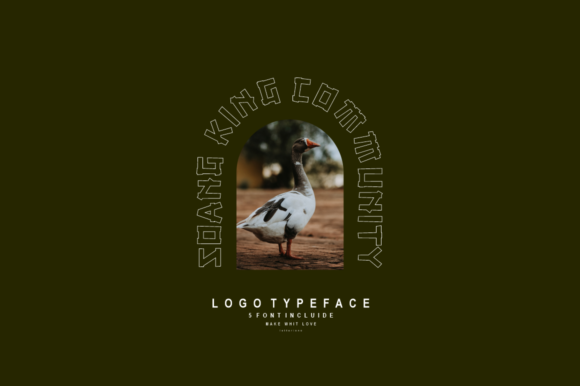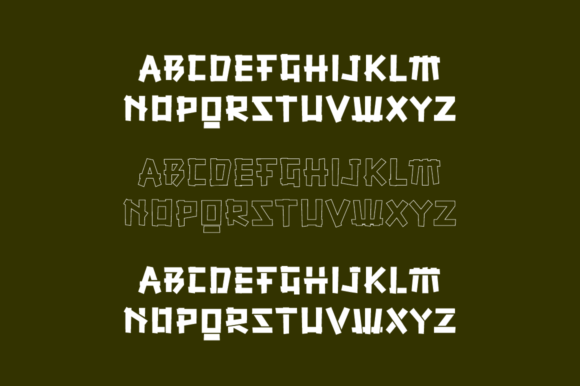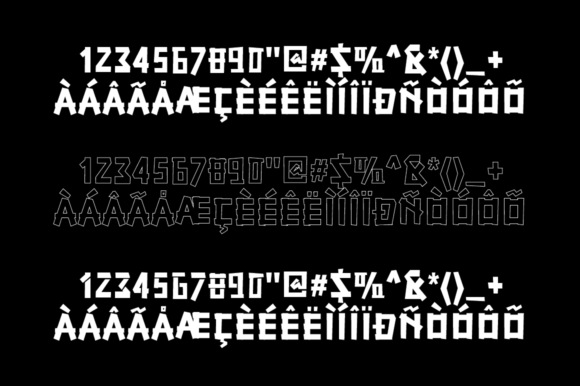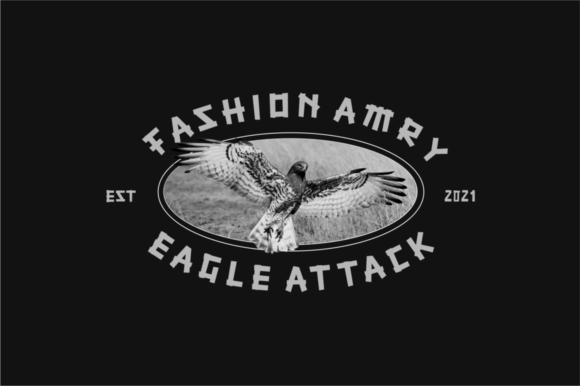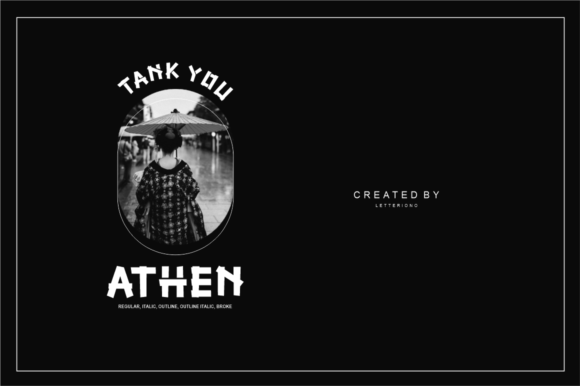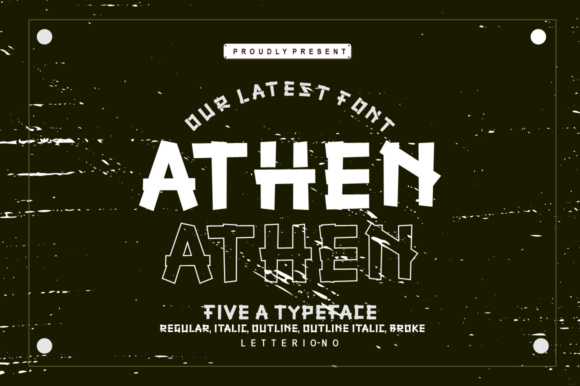
The Designer’s Dream Font: A Deep Dive into Athen Font
I’ll never forget the time I was working on a branding project for a trendy new coffee shop. My client wanted a bold, eye-catching font that would make their logo stand out, but I was struggling to find the perfect one. That was until I stumbled upon Athen Font – a game-changing, bold, and thick lettered display font that instantly elevated my design. In this article, I’ll share my experience with Athen Font, its features, and how to make the most of it in your designs.
An Honest Review of Athen Font
Athen Font has become a staple in my font library, and for good reason. Here’s what I love about it:
- ✨ Bold and attention-grabbing: Athen Font is perfect for making a statement with your designs.
- ✅ Versatile: It can be used for a wide range of projects, from logos and branding to posters and social media graphics.
- 💥 Impactful: The font’s thick letters and bold lines make it perfect for creating eye-catching headlines and titles.
However, no font is perfect, and Athen Font has a few small quirks:
- 🤔 Limited use for body text: Due to its bold and thick nature, Athen Font is not suitable for long blocks of text.
- ⚠️ May not be suitable for small sizes: The font’s bold lines and thick letters can make it difficult to read at small sizes.
- Experiment with OpenType features, such as Stylistic Alternates, to add some extra flair to your design.
The Story Behind Athen Font
Athen Font was designed by a team of typographers who wanted to create a bold and versatile font that would be perfect for display purposes. Inspired by ancient Greek typography, the font features thick lines and bold letters that evoke a sense of grandeur and sophistication. The design team spent countless hours perfecting the font’s curves and lines to create a truly unique and eye-catching design.
| Font Name | Athen Font |
| Author | Letteriono |
| What is Athen Font best used for? | Athen Font is best used for display purposes, such as headlines, titles, and logos. |
| Is Athen Font suitable for body text? | No, Athen Font is not suitable for long blocks of body text due to its bold and thick nature. |
| Is Athen Font available in different weights and styles? | Yes, Athen Font is available in a range of weights and styles, including bold, regular, and italic. |